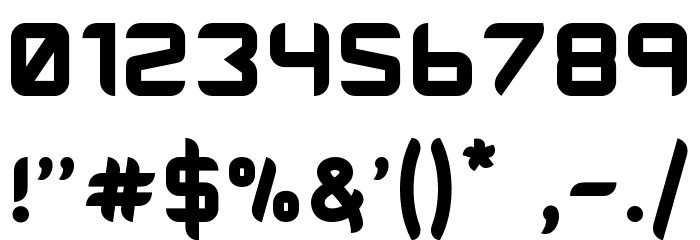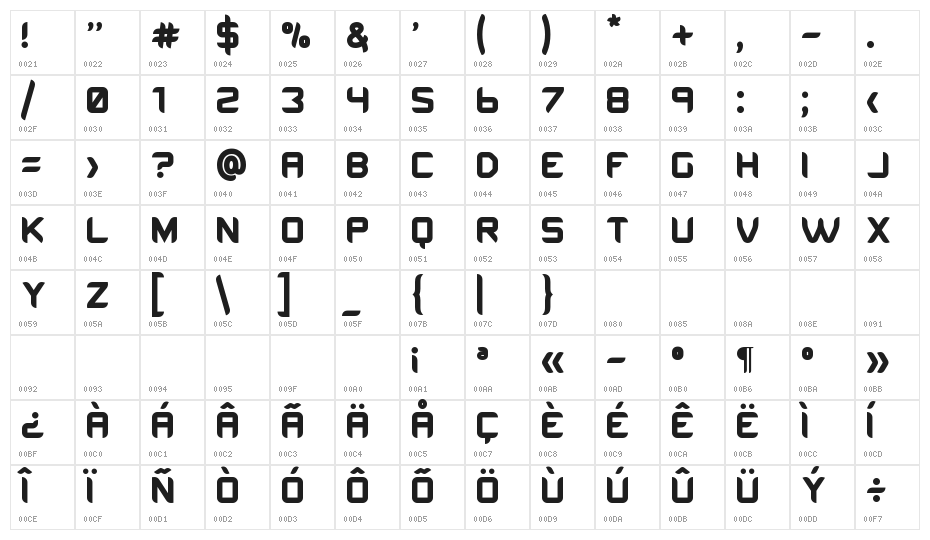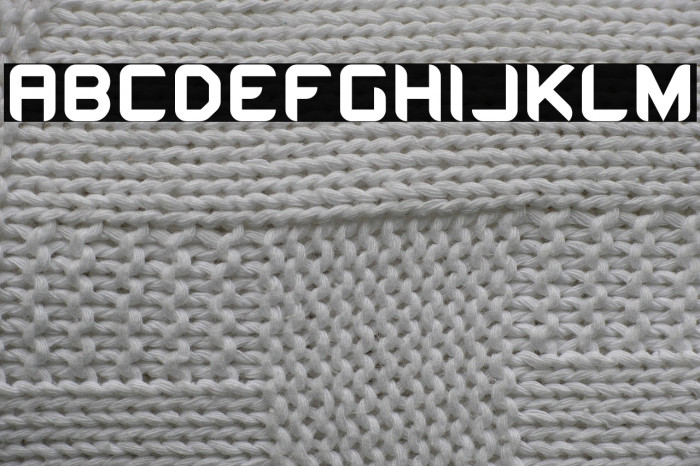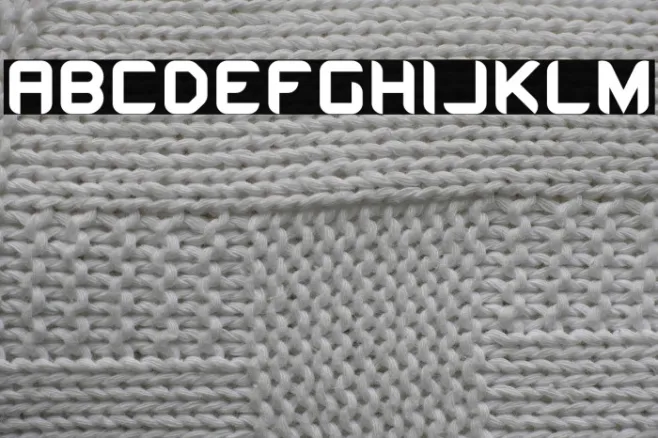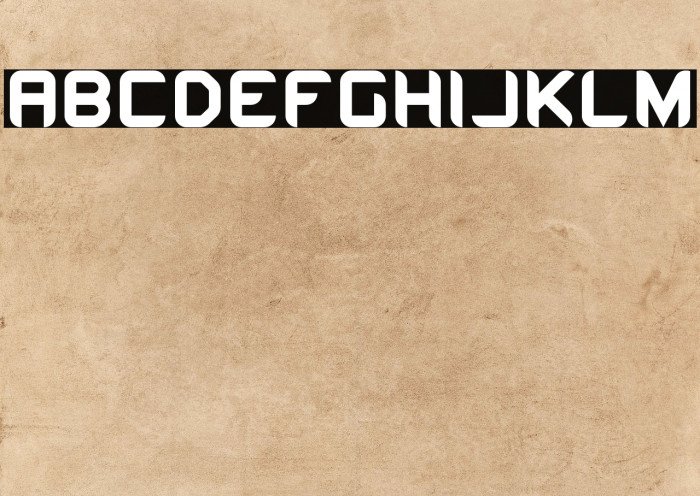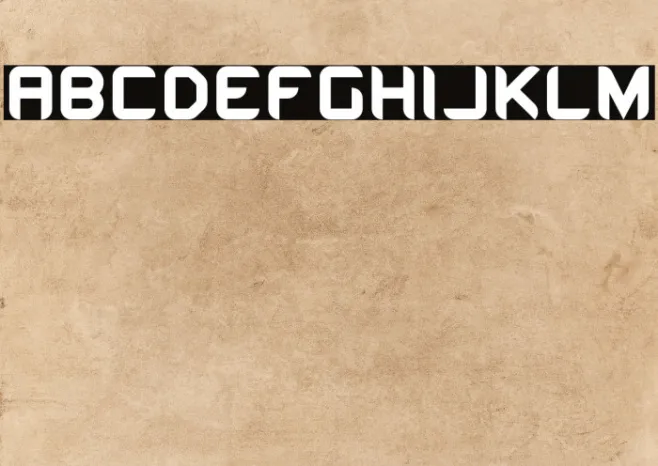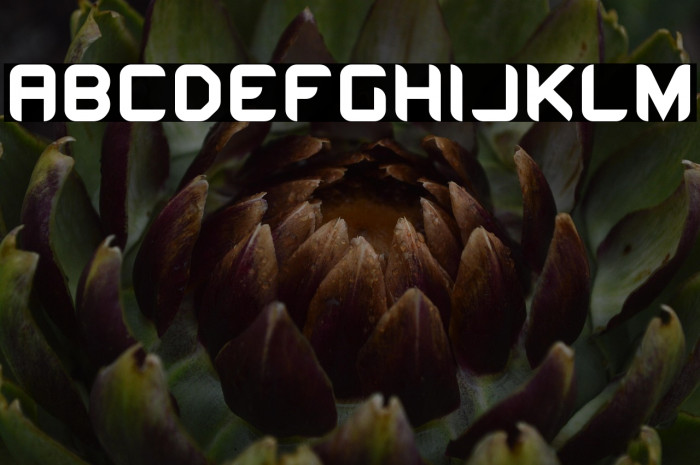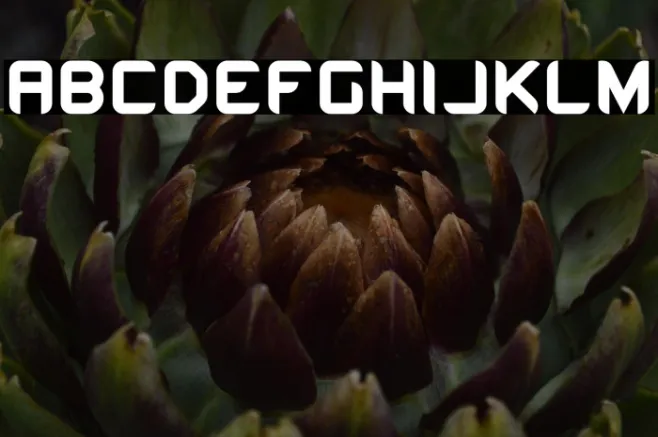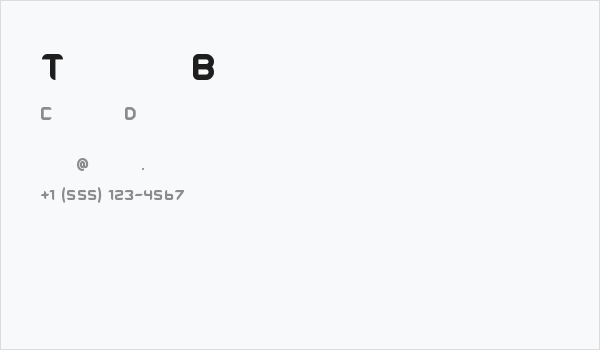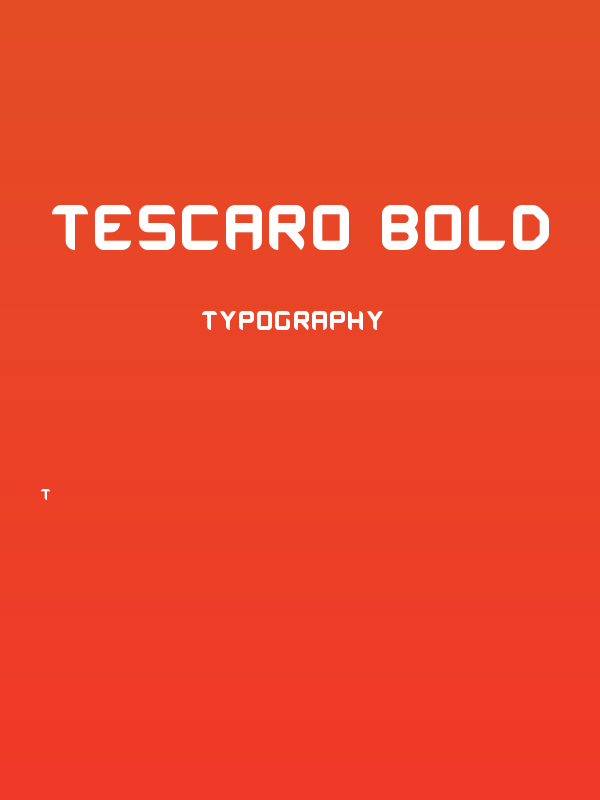
Tescaro Bold Font
Tescaro Bold Description
This font features a bold, geometric design with rounded edges, giving it a modern and futuristic appearance. The characters are uniformly thick, contributing to a strong visual impact. The uppercase and lowercase letters maintain a consistent style, with a slight emphasis on angularity and symmetry. The numerals are clear and distinct, matching the overall aesthetic of the alphabet. Special characters are well-integrated, maintaining the font's cohesive look. This font is ideal for projects that require a contemporary and assertive typeface.
| Use Case | Headlines, Logos, Digital Interfaces |
| Proposed Projects | Ideal for technology branding, modern advertising, digital interfaces, and futuristic design projects. |